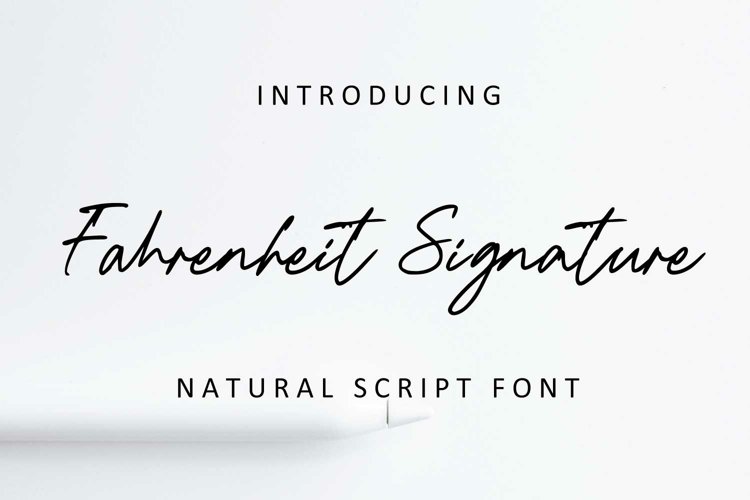
Fahrenheit Signature
Fahrenheit Signature is a natural script font to beautify your designs with its natural charm, suitable to create gorgeous wedding invitation, beautiful sosial media post, bussiness card and other beautiful projects